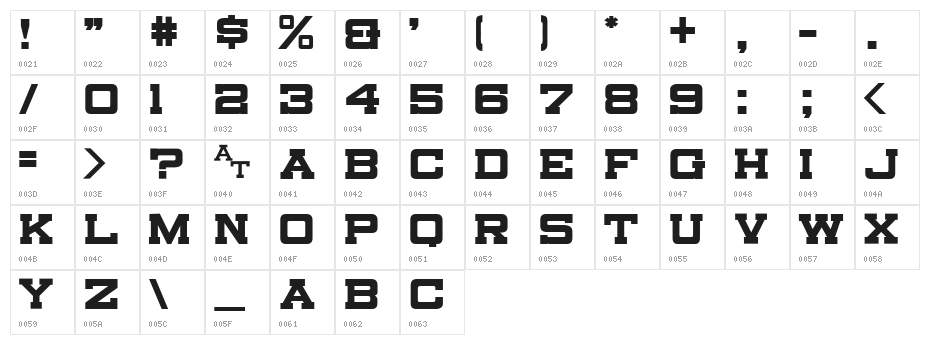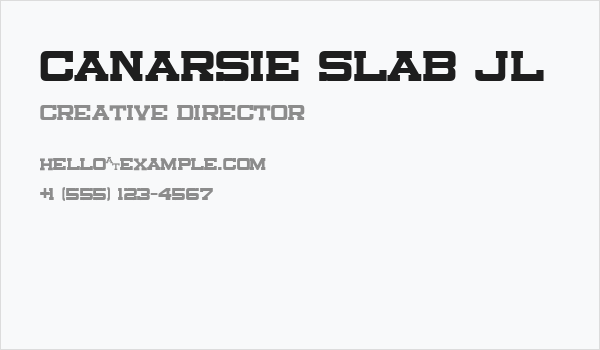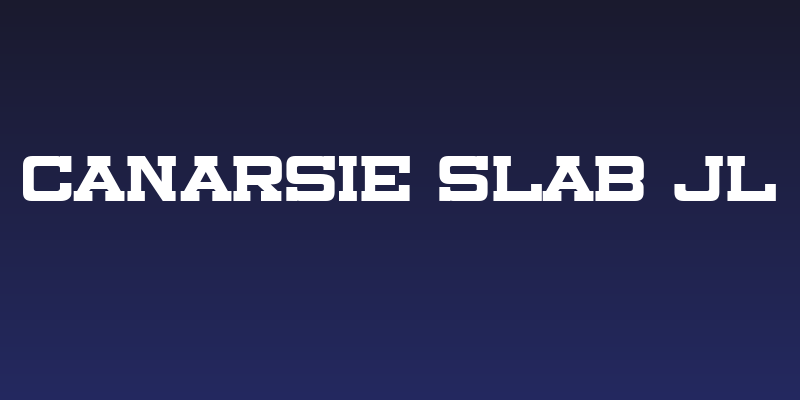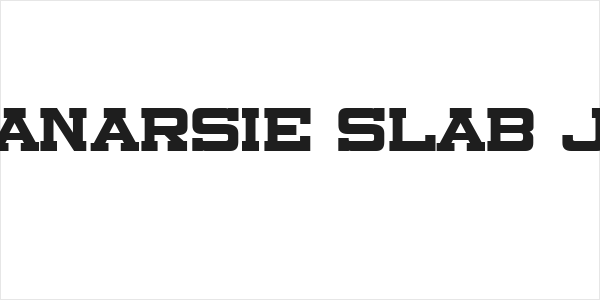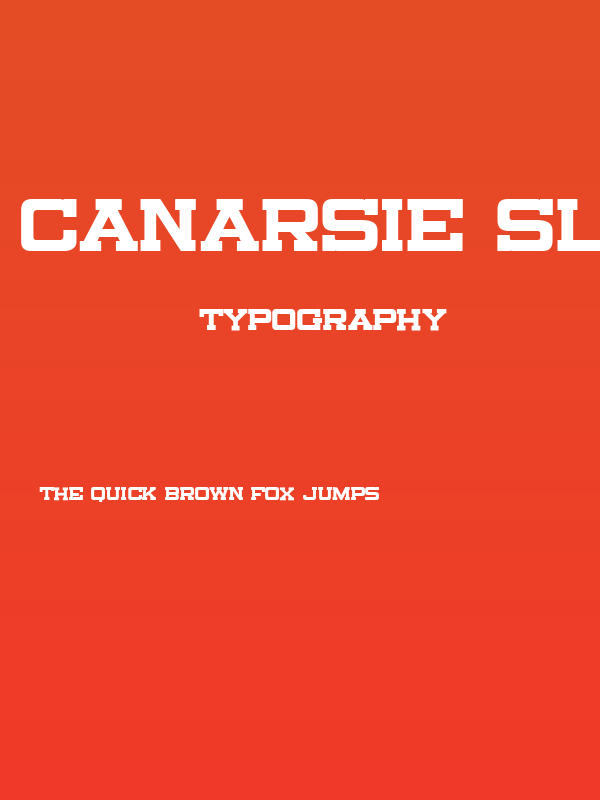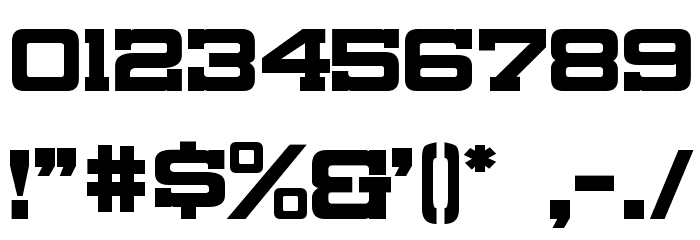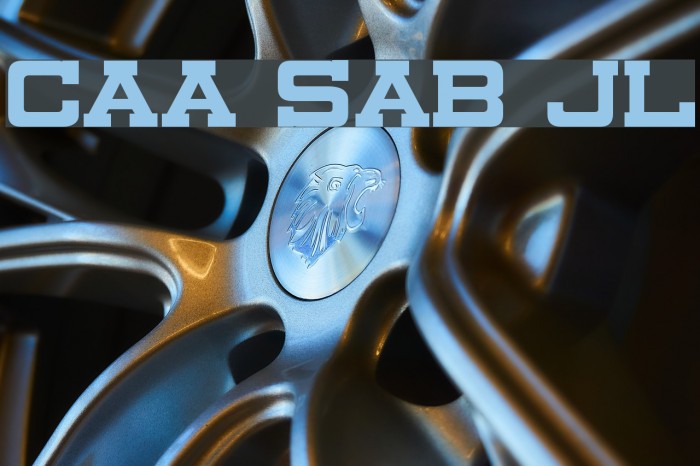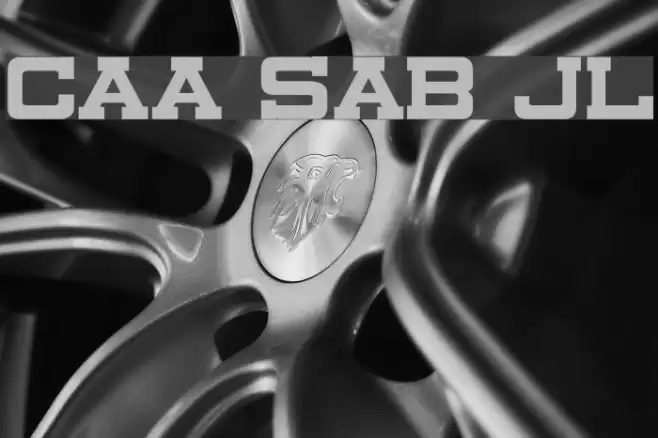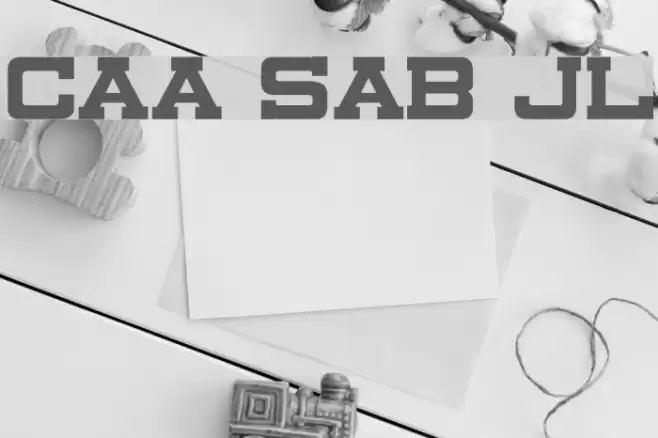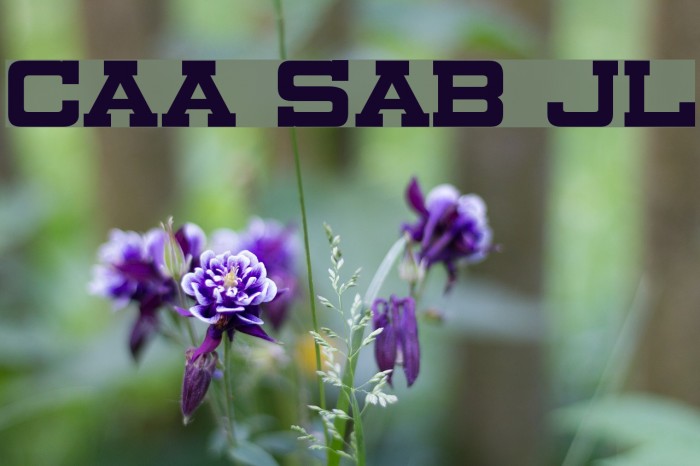
Canarsie Slab JL Font
Canarsie Slab JL Description
This font is a bold and robust slab serif typeface characterized by its thick, block-like serifs and strong geometric shapes. The uppercase letters are uniform in height, with a consistent stroke width that gives the font a powerful and commanding presence. The numerals and special characters maintain the same boldness, ensuring a cohesive look across all text elements. The font's design is reminiscent of industrial and architectural styles, making it suitable for projects that require a strong visual impact.
| Proposed Projects | Ideal for branding, posters, headlines, and signage where a strong, impactful typeface is needed. |